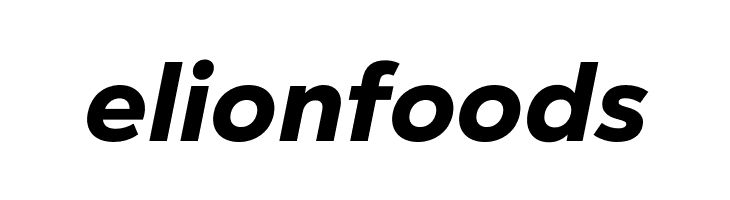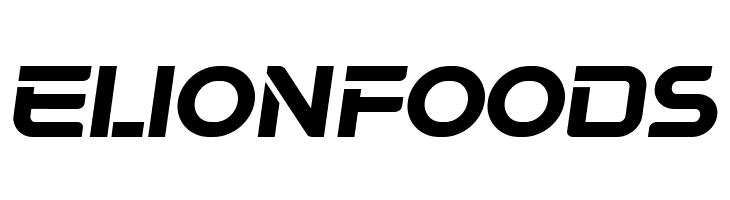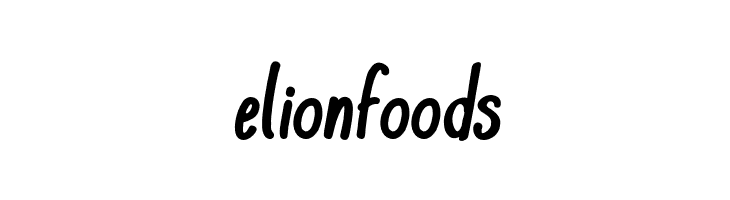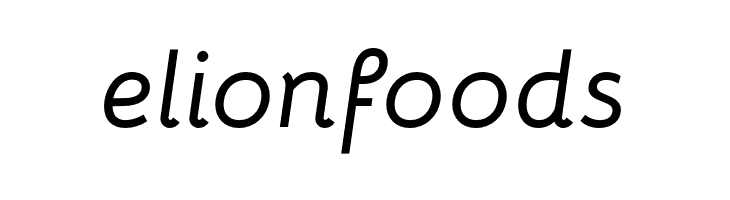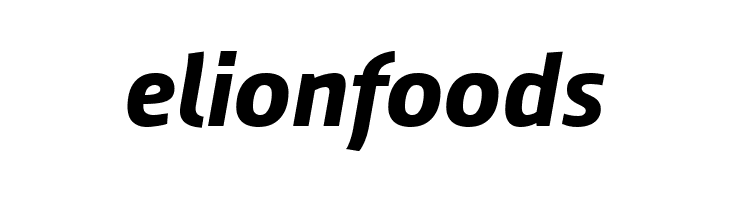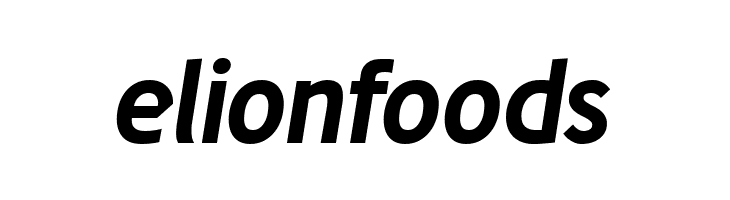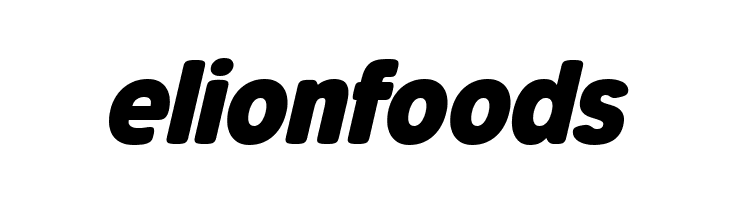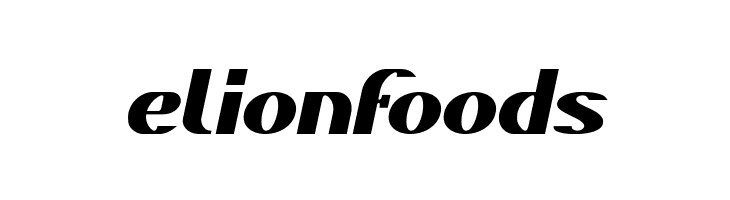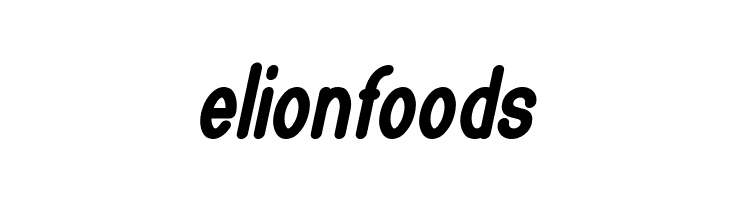
A bold, italic sans-serif font with a modern and dynamic style.
A bold, italicized font with a modern, geometric style.
A bold, italicized font with a playful and dynamic style.
A bold, italicized font with a playful and modern design.
A bold, rounded, and italic font with a modern and friendly style.
A bold, italicized font with a dynamic, forward-leaning style.
A bold, italic font with smooth, rounded edges and a dynamic slant.